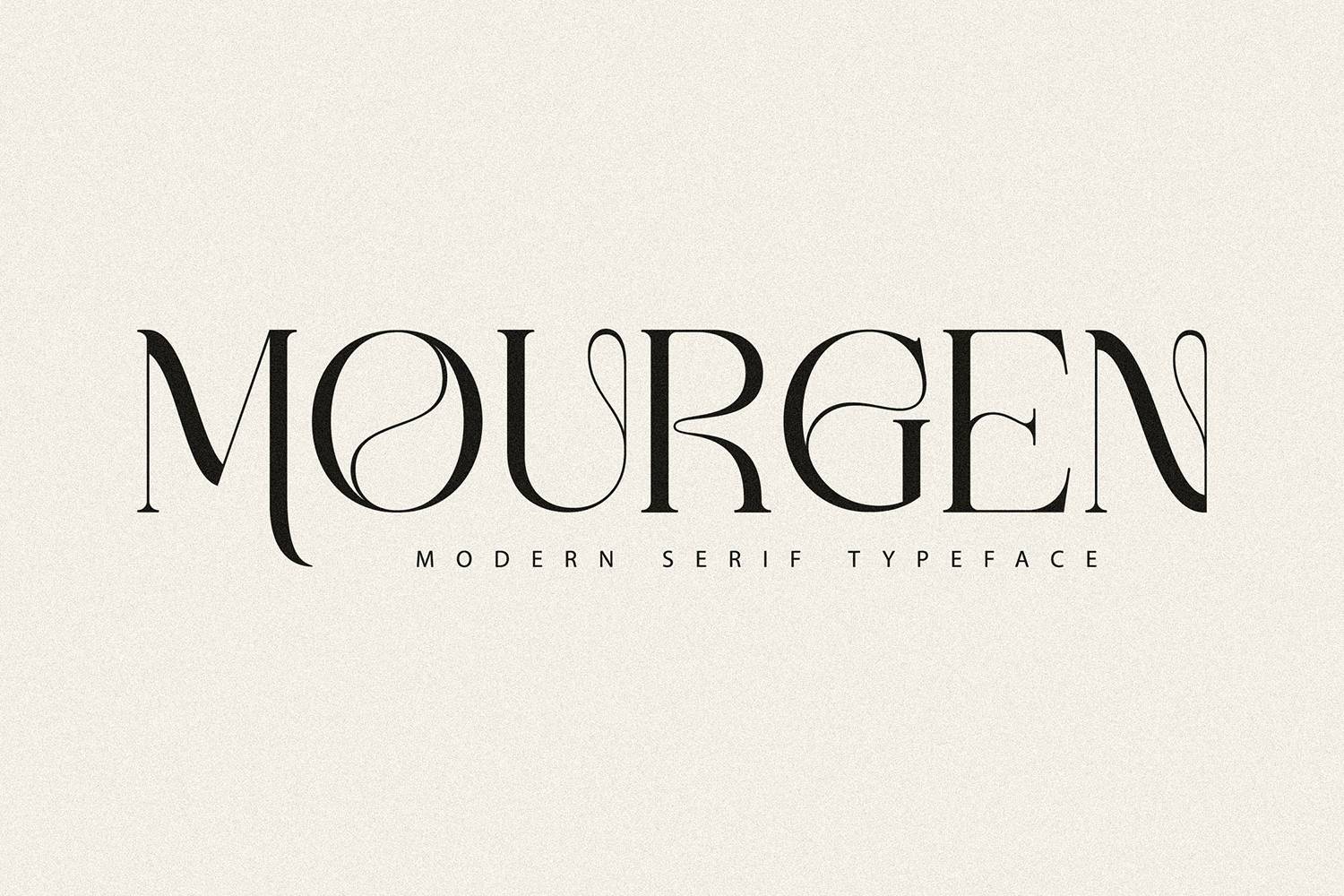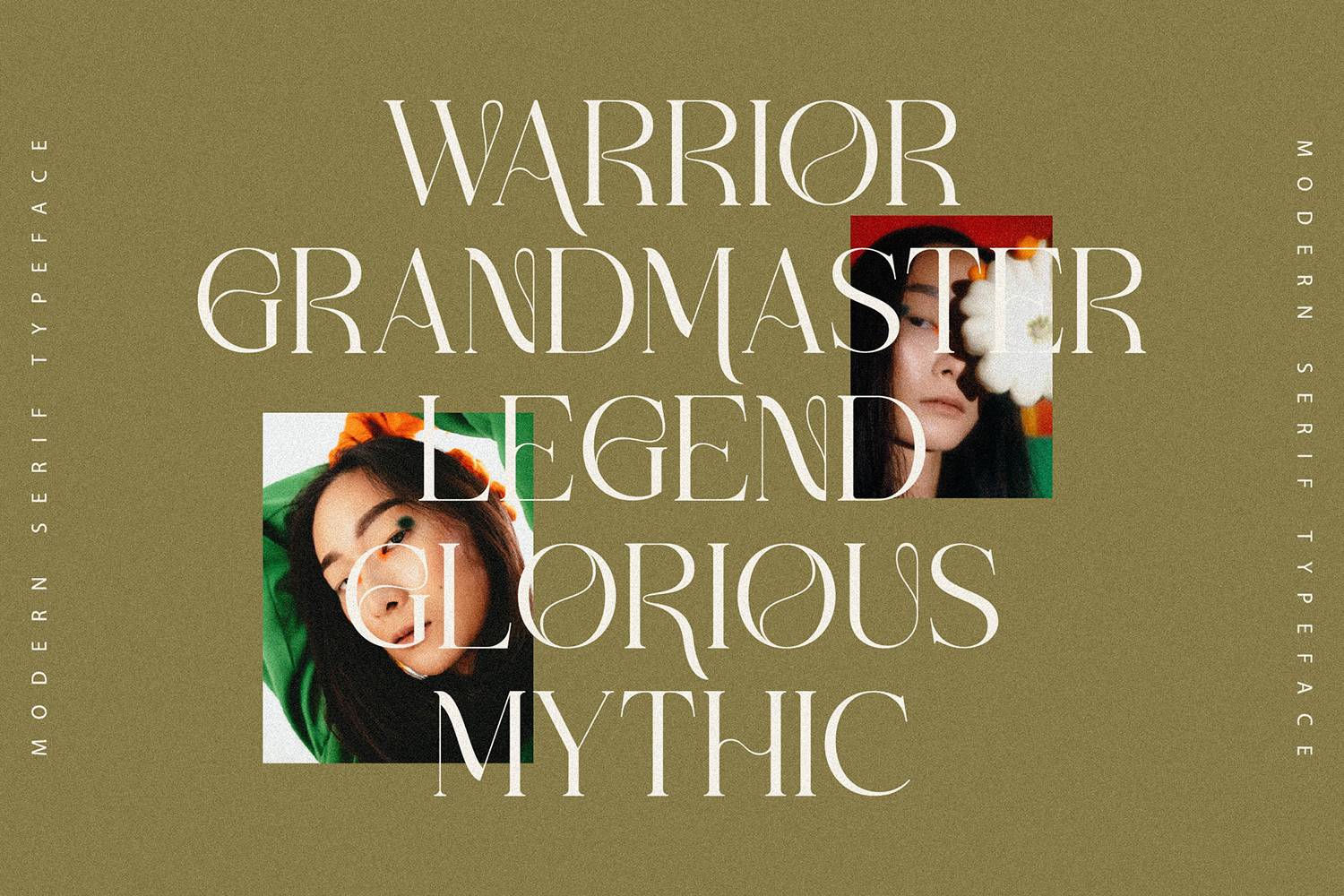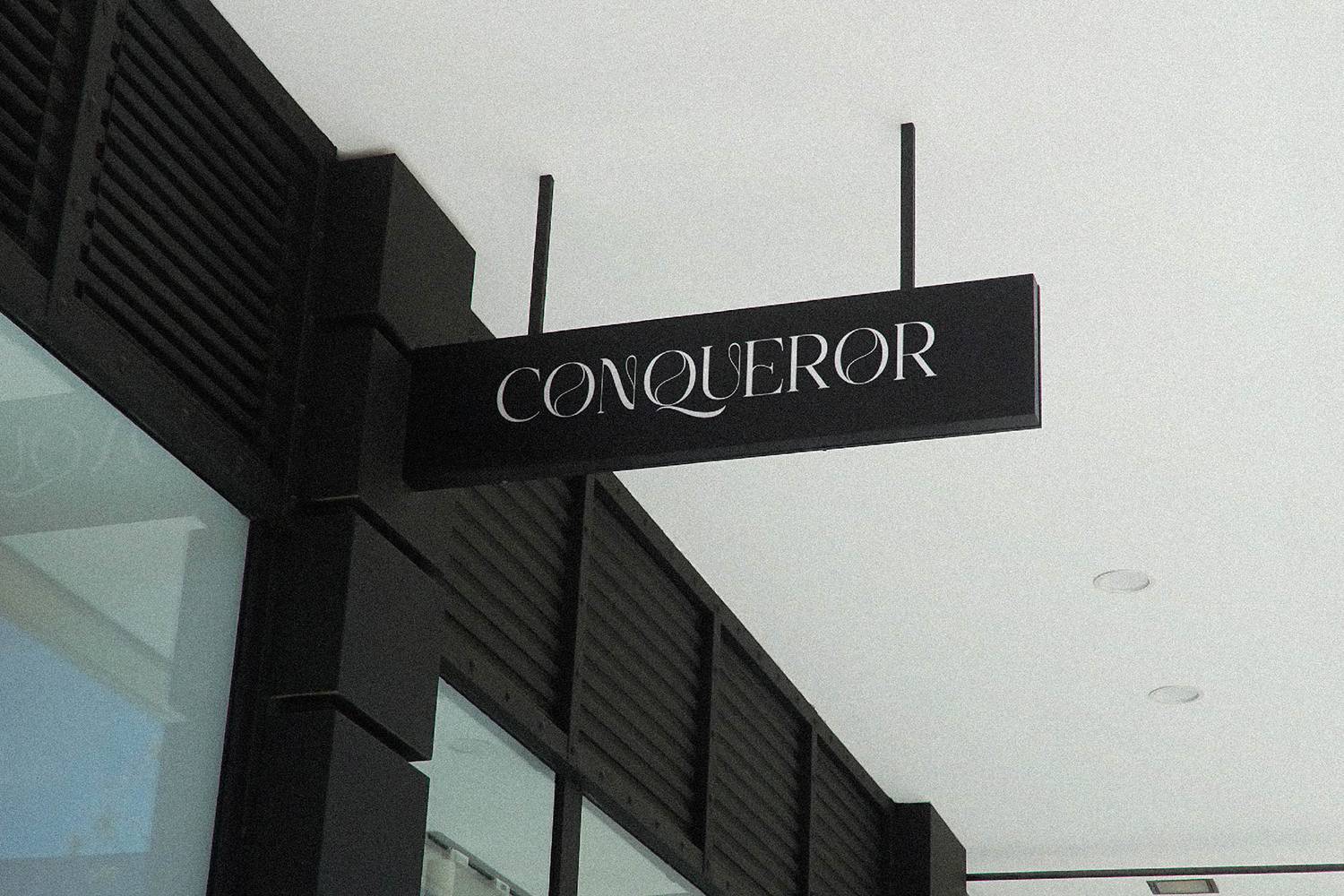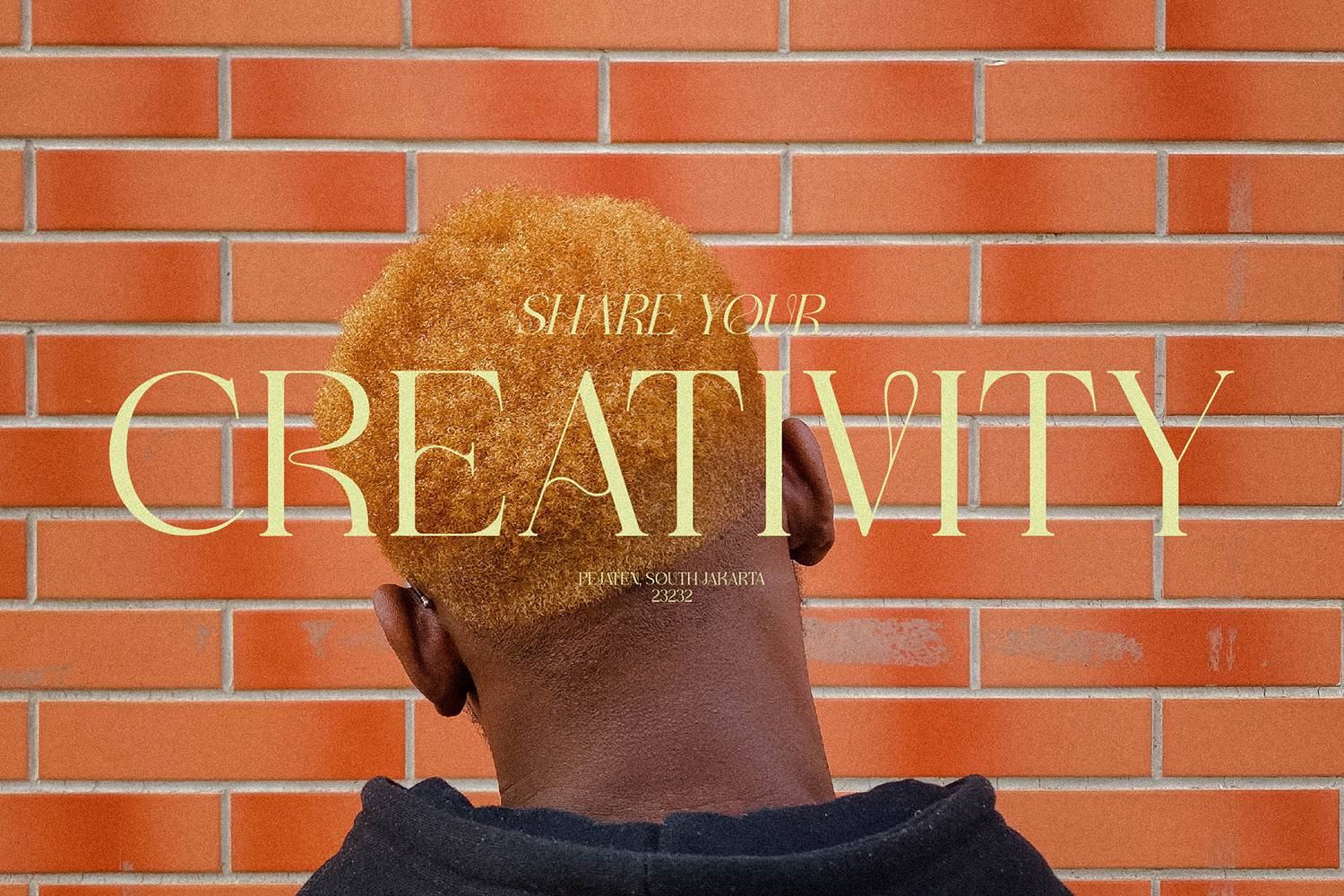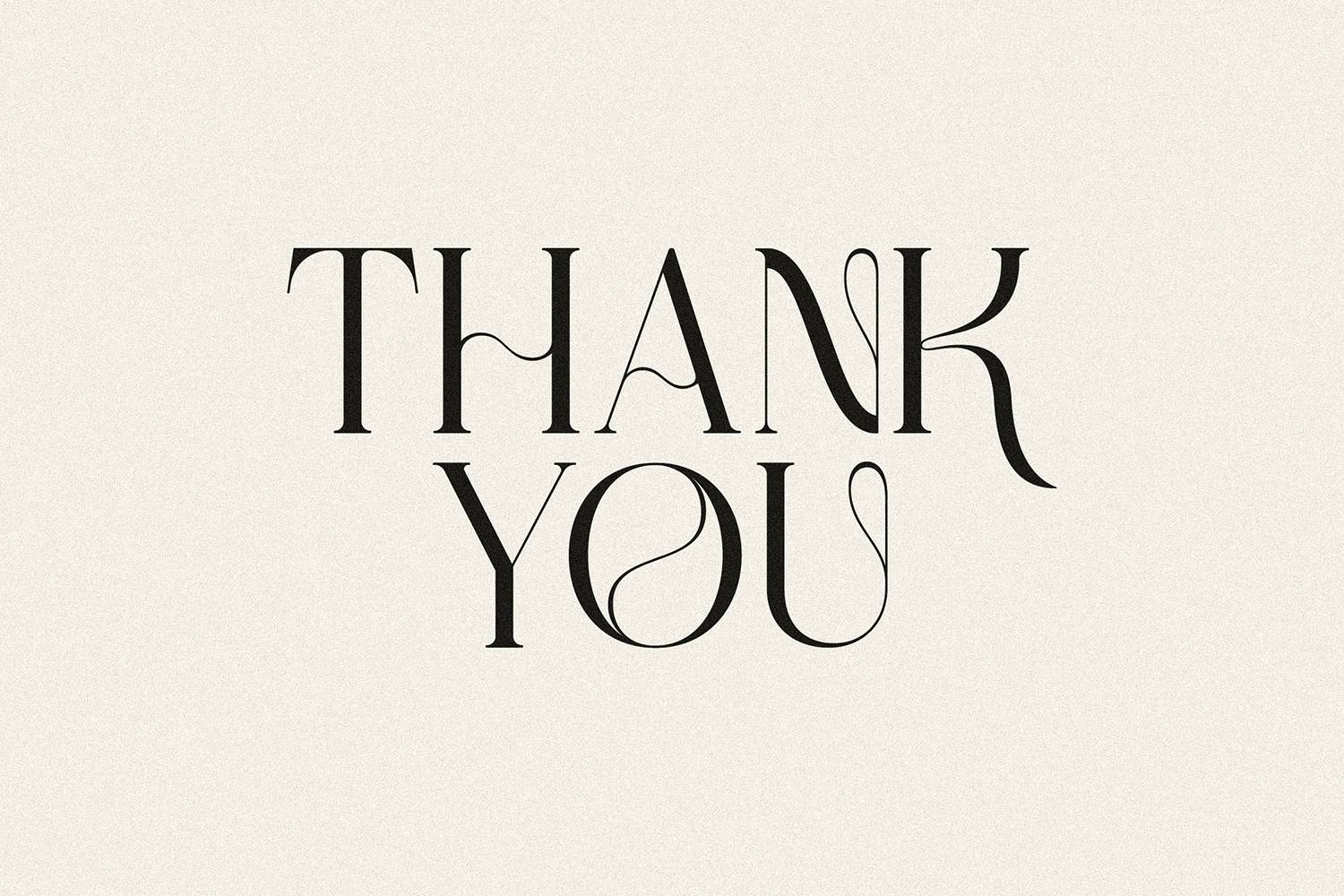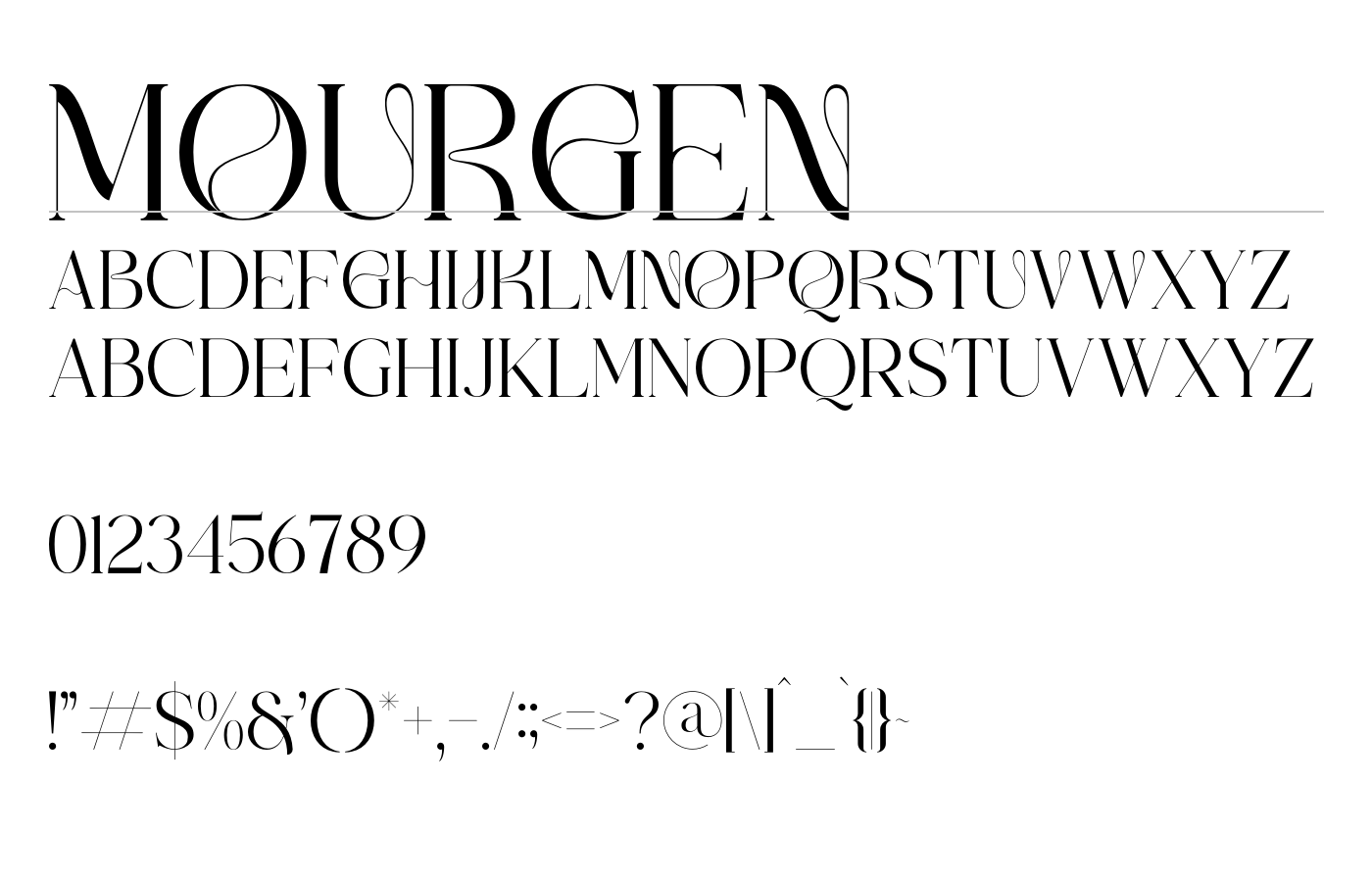
Mourgen is an elegant serif font with high contrast strokes and thin, delicate serifs that evoke a refined, sophisticated feel. Its tall, narrow letterforms and graceful curves make it ideal for luxury branding, fashion editorials, and upscale logo design where a striking and stylish appearance is desired. This font works best in large sizes such as headlines or invitations, where its intricate details can truly shine.
Mourgen Font
About Mourgen Font